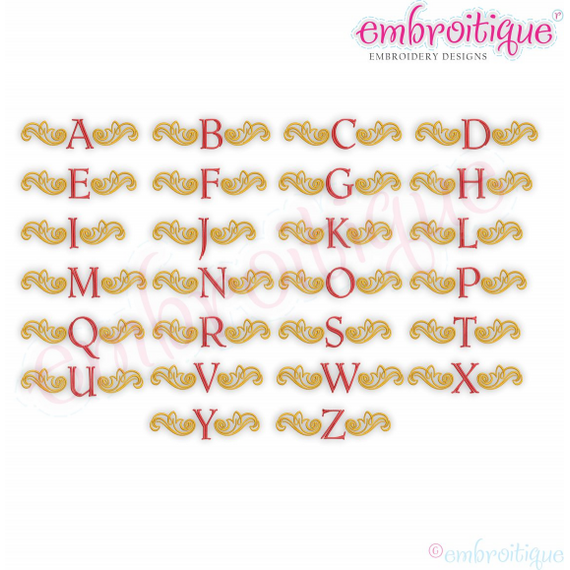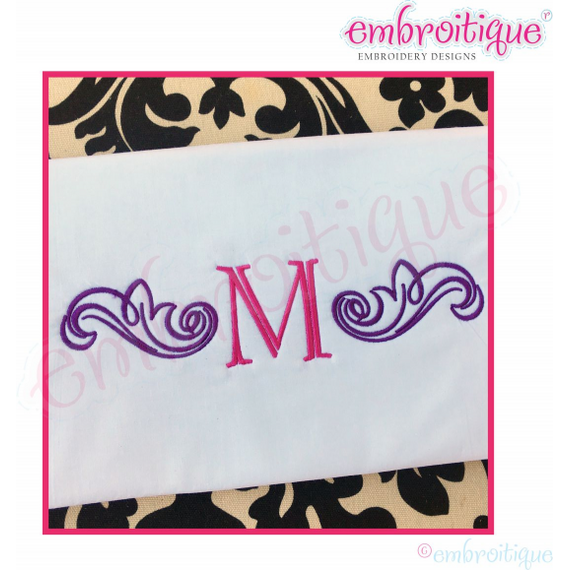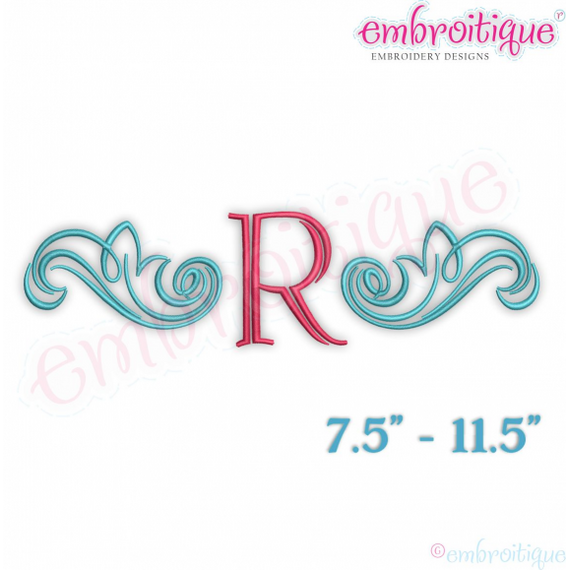
Steele Vintage Accent Flourish Initial Embroidery Monogram Font - Large Embroitique
A beautiful inital monogram set that is the perfect embellishment for clothing, pillowcases, totes & more.
A-Z - Size based on the width of the design.